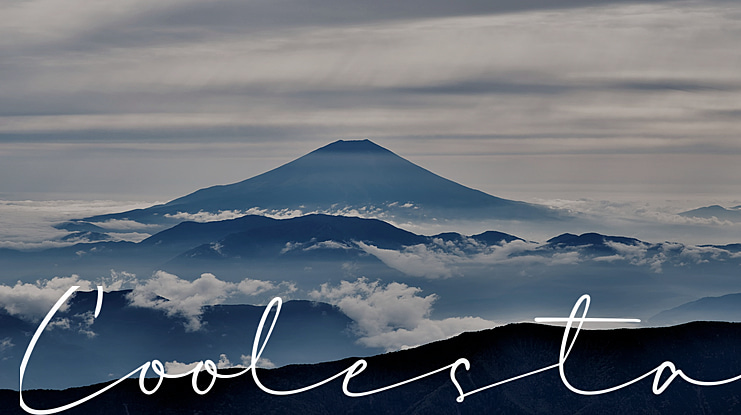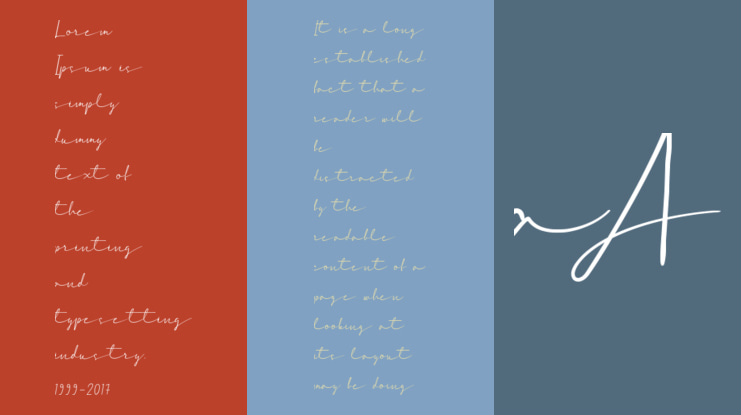
Coolesta Font
Hello, let me introduce my new signature font Coolesta. Made with great effort to produce an elegant and modern style. Coolesta is made like handwriting so it is suitable for branding, logos, business cards, wedding invitations, quotes, and others.
- Alternates Ss01, Ss02, Ss03, Ss04, Ss05 - Ligatures - Multilingual Support - swashes - Multilingual's alternate